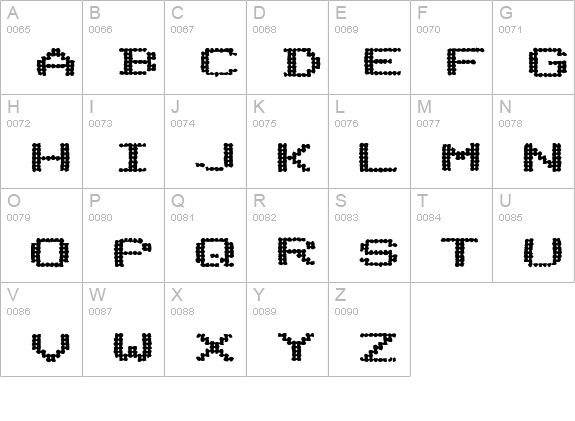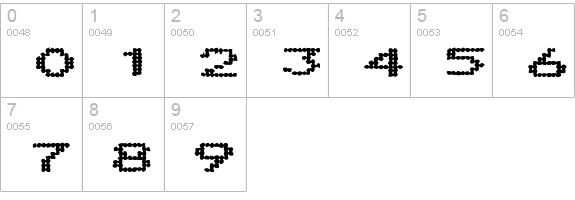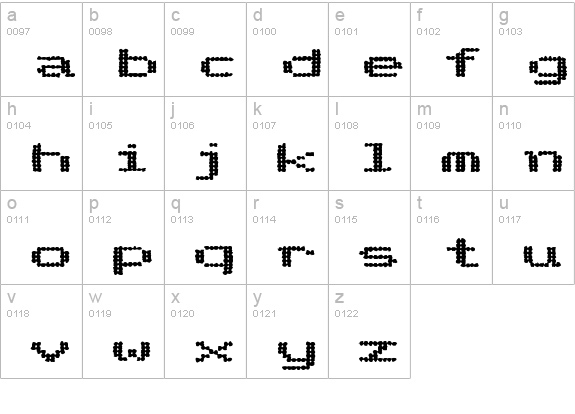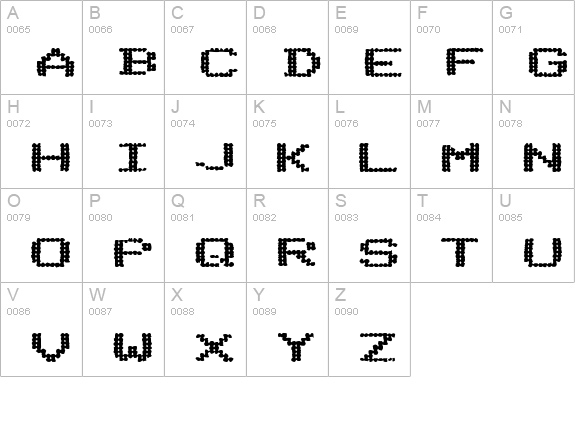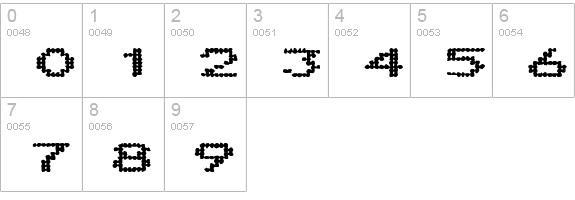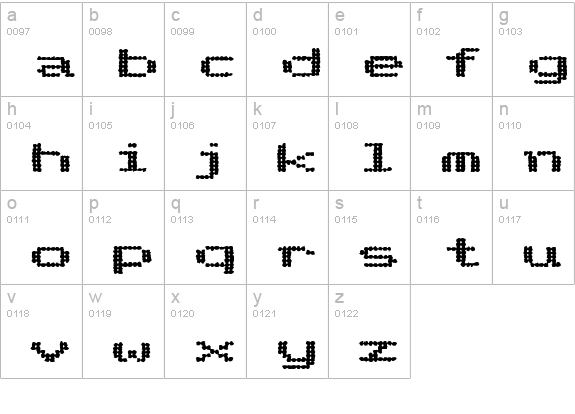
Telidon Ink ExHv Font Details
Telidon Ink ExHv is a unique and stylish font designed to make a bold statement in any project. This font features a dynamic and edgy design, perfect for adding a modern touch to your designs. The intricate details and sharp edges of Telidon Ink ExHv exude a sense of creativity and originality, making it a standout choice for graphic designers and creatives alike. What sets Telidon Ink ExHv apart is its free-spirited energy and versatility. Whether you're creating posters, branding materials, or social media graphics, this font will add a touch of sophistication and flair to your work. Its bold strokes and striking appearance make it ideal for headlines, titles, and attention-grabbing text. The best part? Telidon Ink ExHv is freely available to download at FontsMarket.com, allowing you to unleash your creativity without any restrictions. Don't miss out on the opportunity to elevate your designs with this stunning and impactful font. Download Telidon Ink ExHv today and make your projects stand out from the crowd.